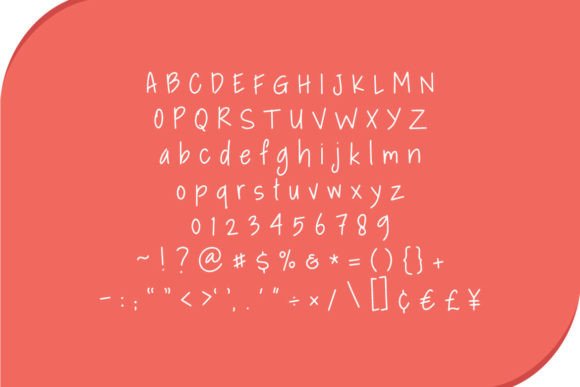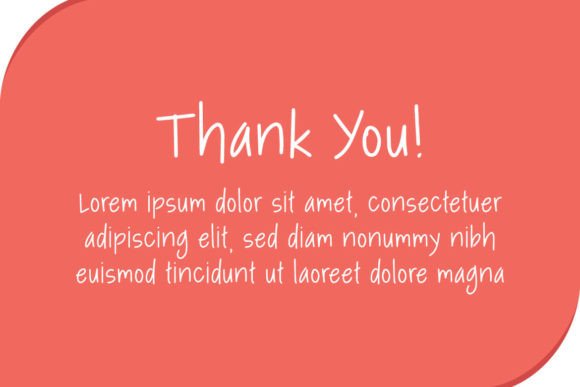
Fiezty Font
About Fiezty Font
Fiezty is a clean yet cute handwritten font.
Fiezty can be used in any work such as book titles, book content, wedding cards, wedding invitations, music covers, children’s books, posters, advertisements, social media content, logos, and many more.